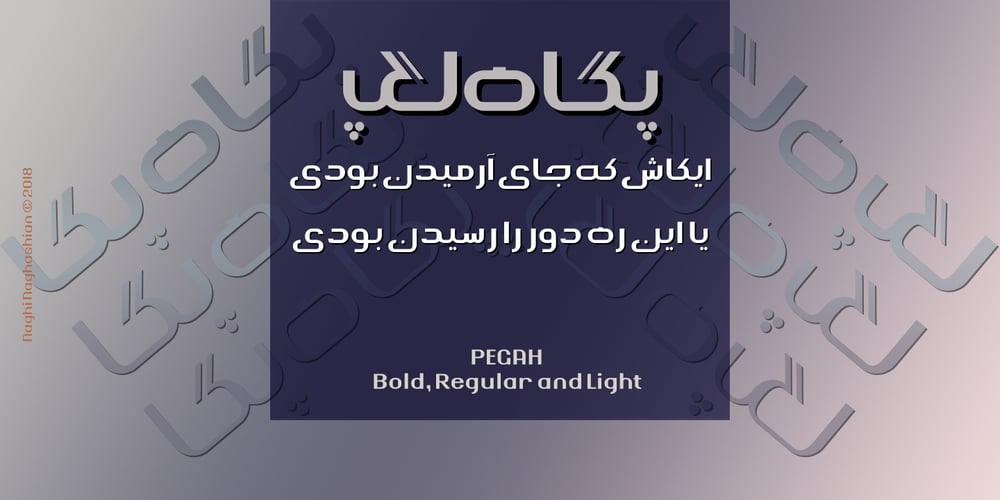
Pegah Font Family was designed by Naghi Naghashian and published by Naghi Naghachian. Pegah contains 3 styles and family package options. Pegah is a sans-serif font family designed by Naghi Naghashian in three weights. Pegah Light, Pegah Regular and Pegah Bold. This font family is a contribution to modernisation of Arabic typography, gives the font design of Arabic letters real typographic arrangement und provides more typographic flexibility. Pegah supports Arabic, Persian and Urdu. It also includes proportional and tabular numerals for the supported languages. Pegah design fulfills the following needs: A Explicitly crafted for use in electronic media fulfills the demands of electronic communication. B Suitability for multiple applications. Gives the widest potential acceptability. C Extreme legibility not only in small sizes, but also when the type is filtered or skewed, e.g., in Photoshop or Illustrator. Nima’s simplified forms may be artificial oblilqued in InDesign or Illustrator, without any loss in quality for the effected text. D An attractive typographic image. BaBa was developed for multiple languages and writing conventions. BaBa supports Arabic, Persian and Urdu. It also includes proportional and tabular numerals for the supported languages. E The highest degree of calligraphic grace and the clarity of geometric typography.